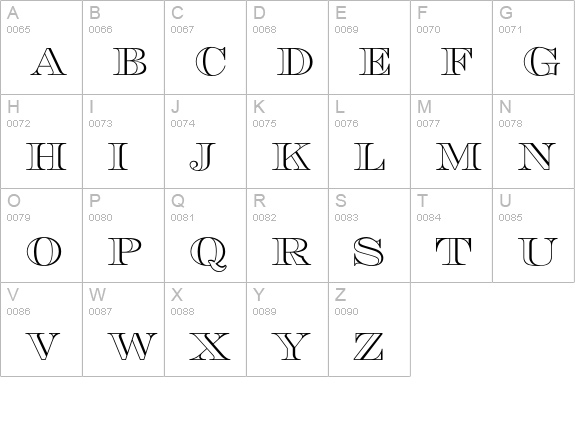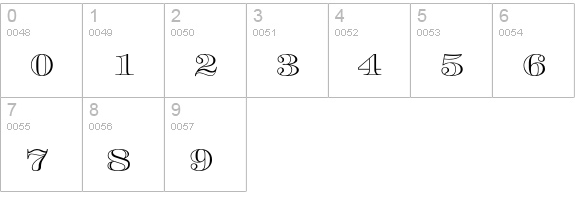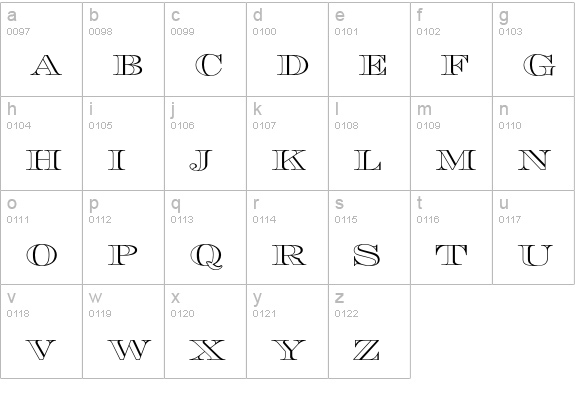
Engravers-Profile Font Details
Engravers-Profile is a classic and elegant font that exudes sophistication and timelessness. With its clean lines and intricate details, this font is perfect for adding a touch of refinement to any project. Whether you're designing a wedding invitation, a business card, or a logo, Engravers-Profile will elevate your design to the next level. The best part? Engravers-Profile is available for free download at FontsMarket.com. This means you can easily access this stunning font without any cost, making it a valuable addition to your font collection. Don't miss out on the opportunity to enhance your designs with the beauty of Engravers-Profile. Download it today and start creating stunning visuals that leave a lasting impression.